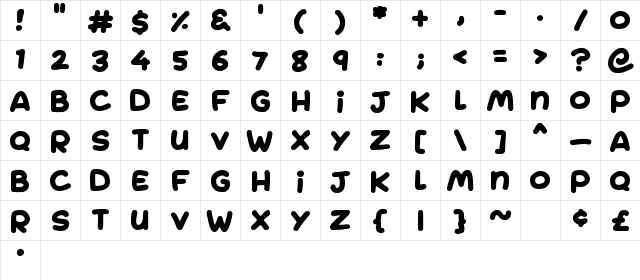
Jumping Regular Free Font
Jumping Regular
Jumping Family
Jumping Regular
Design Context for Jumping
Jumping is a composed and adaptable typeface that performs quietly and consistently across a wide range of design contexts.